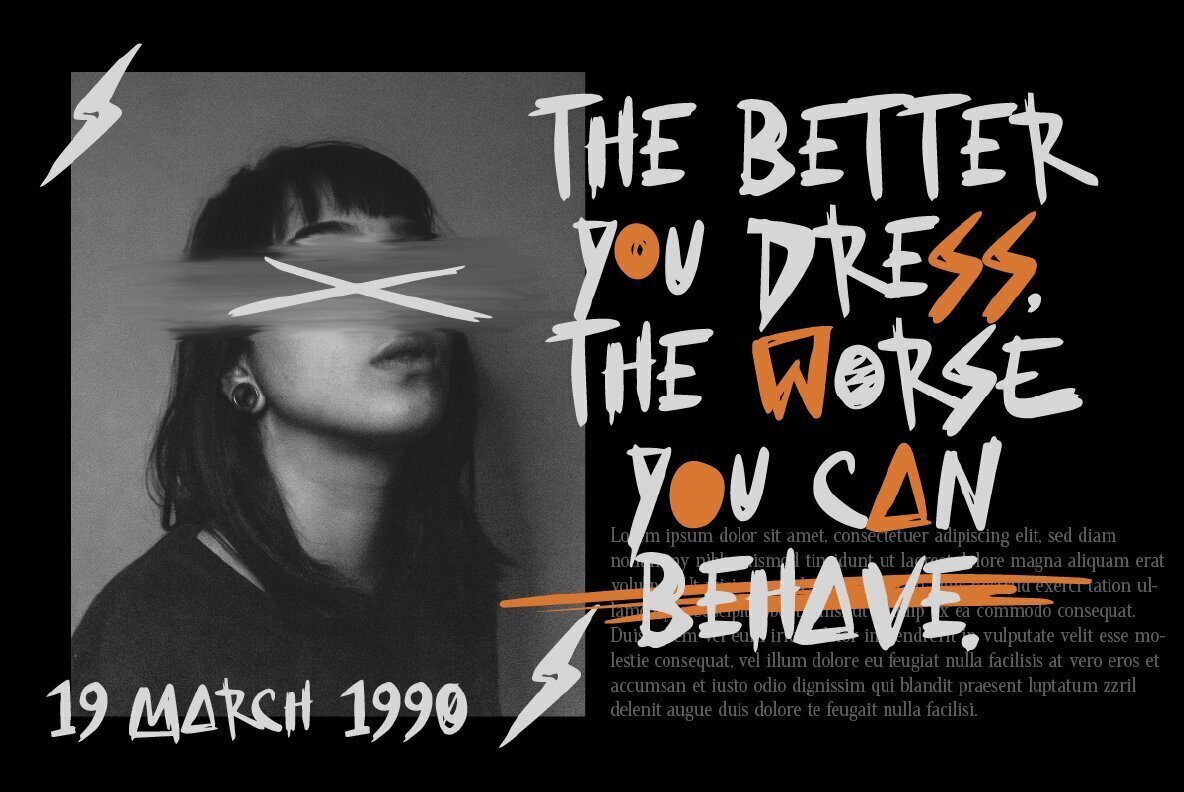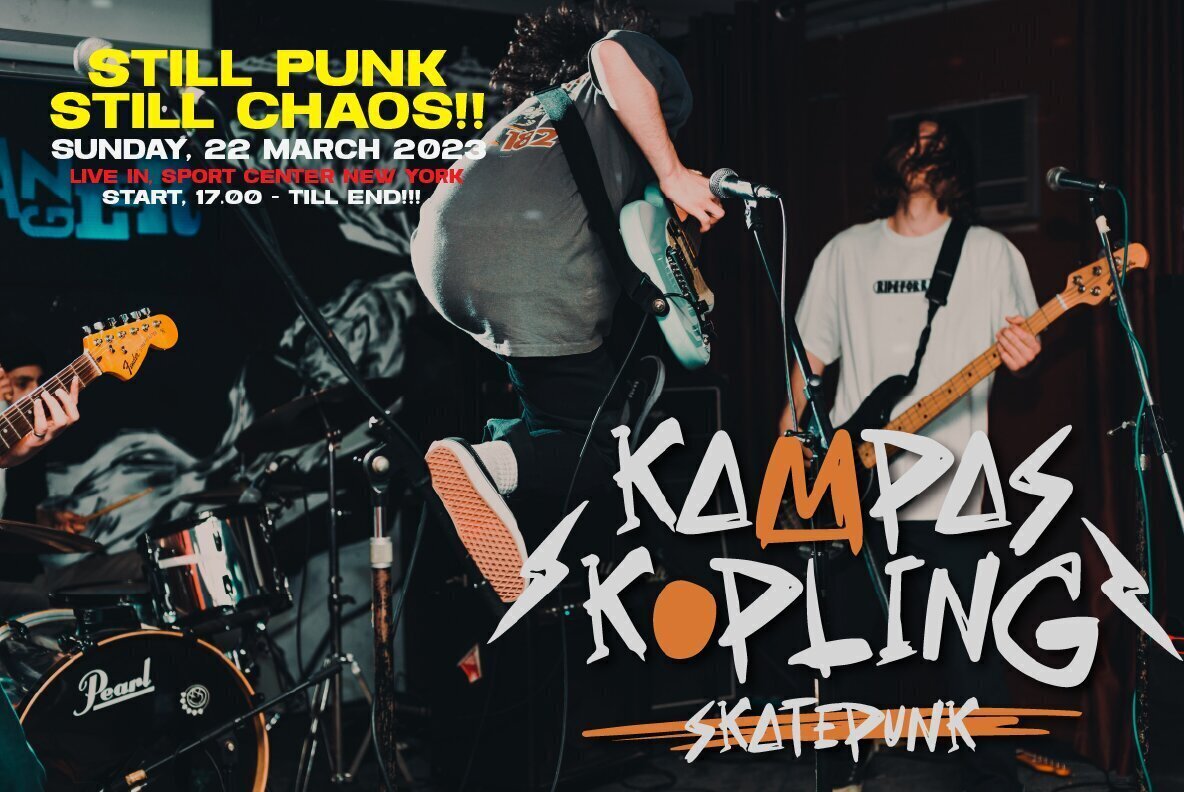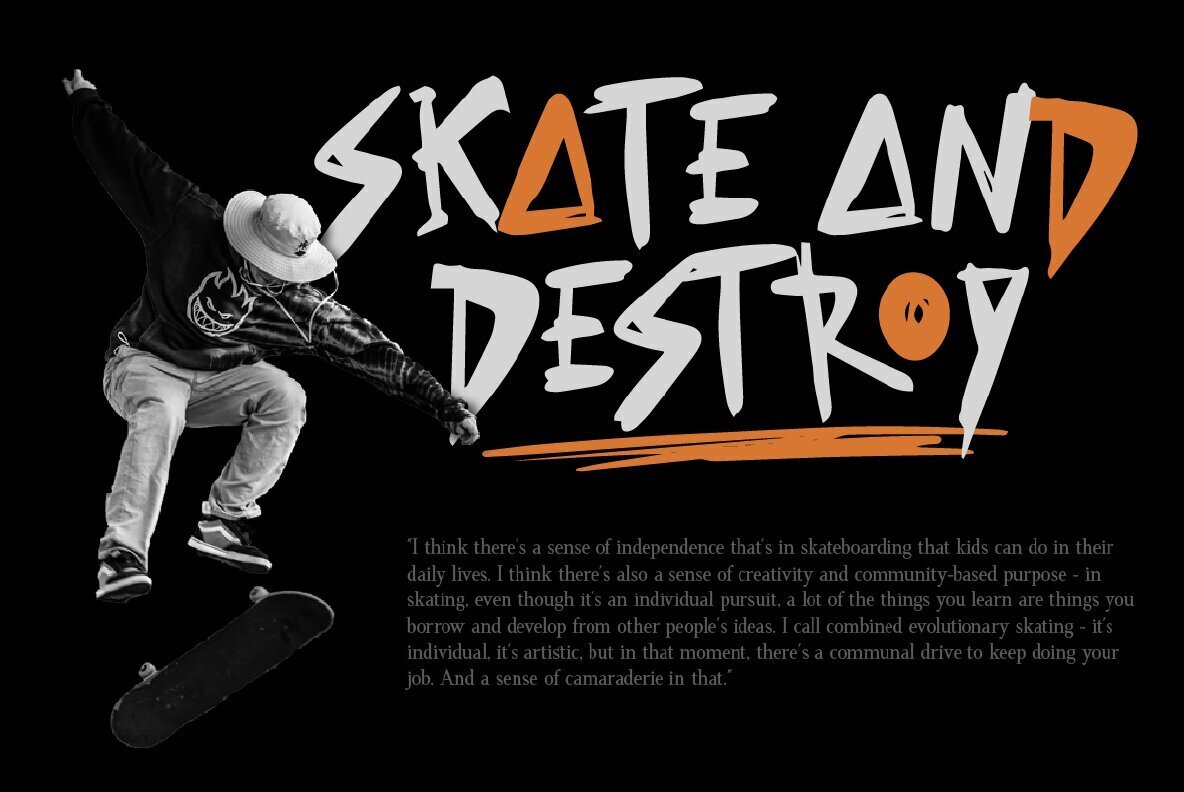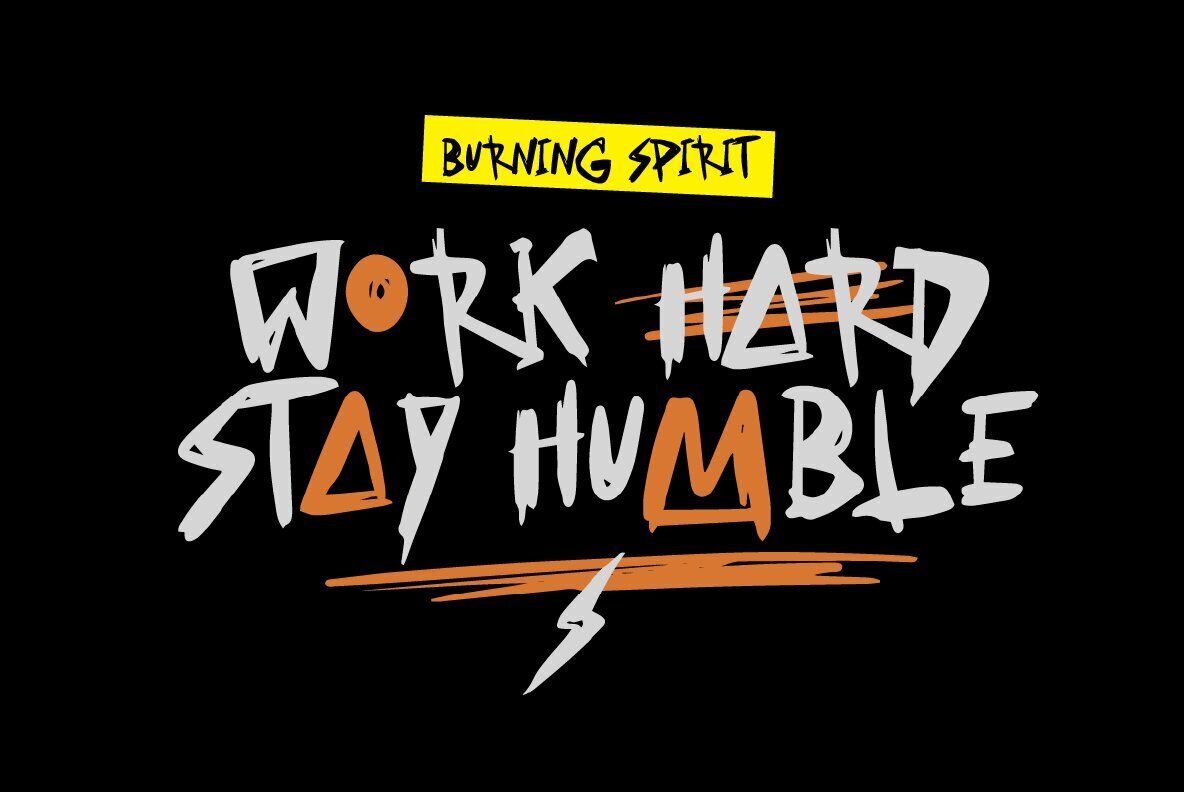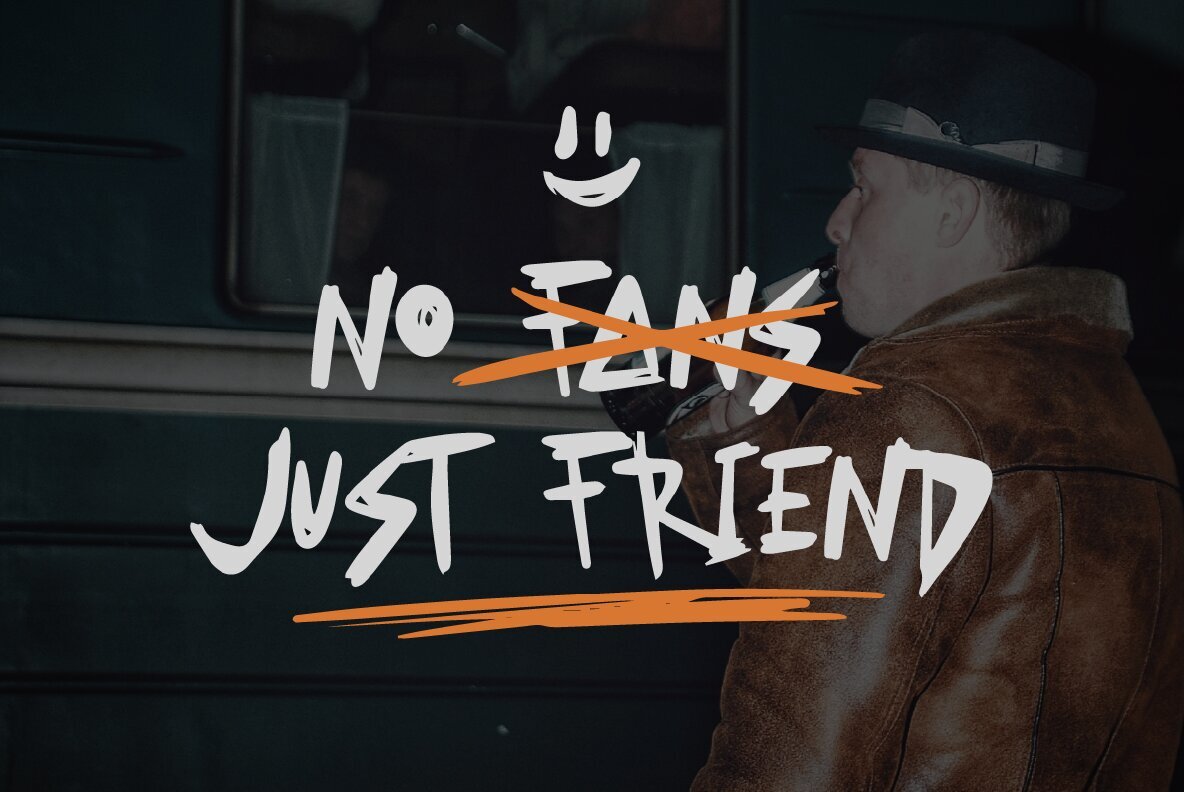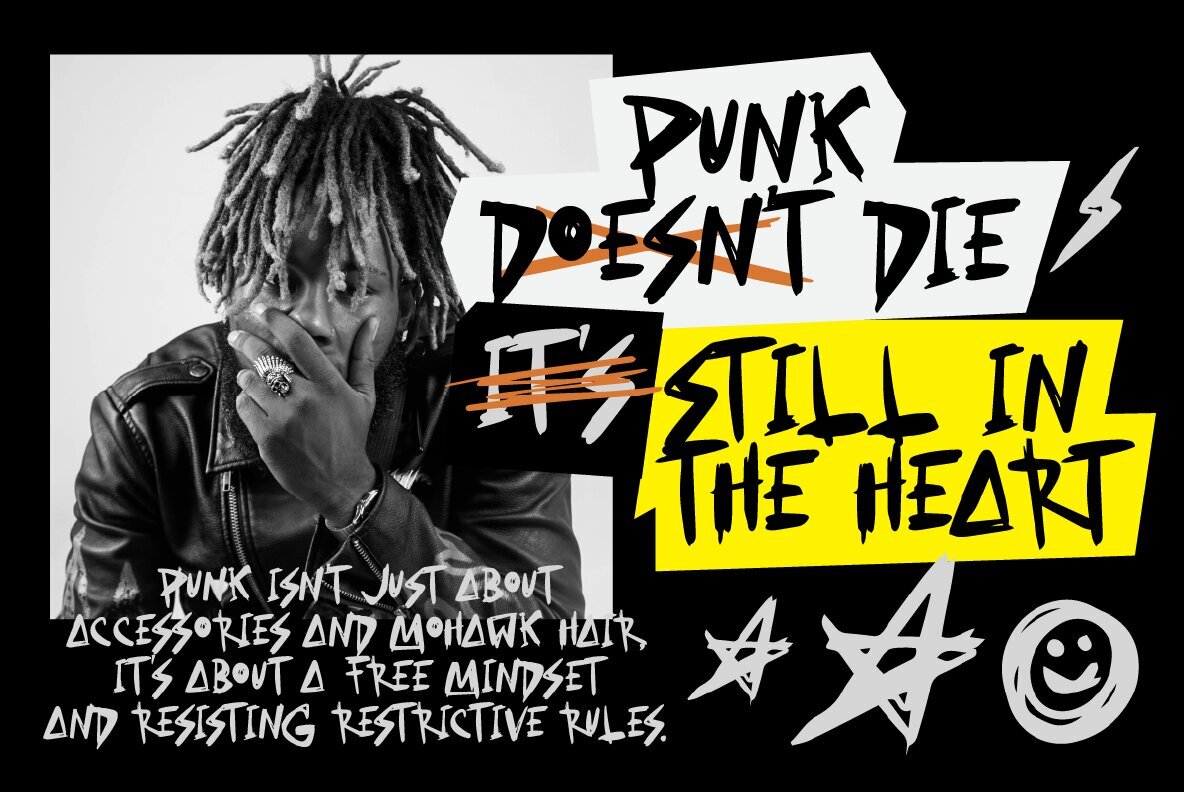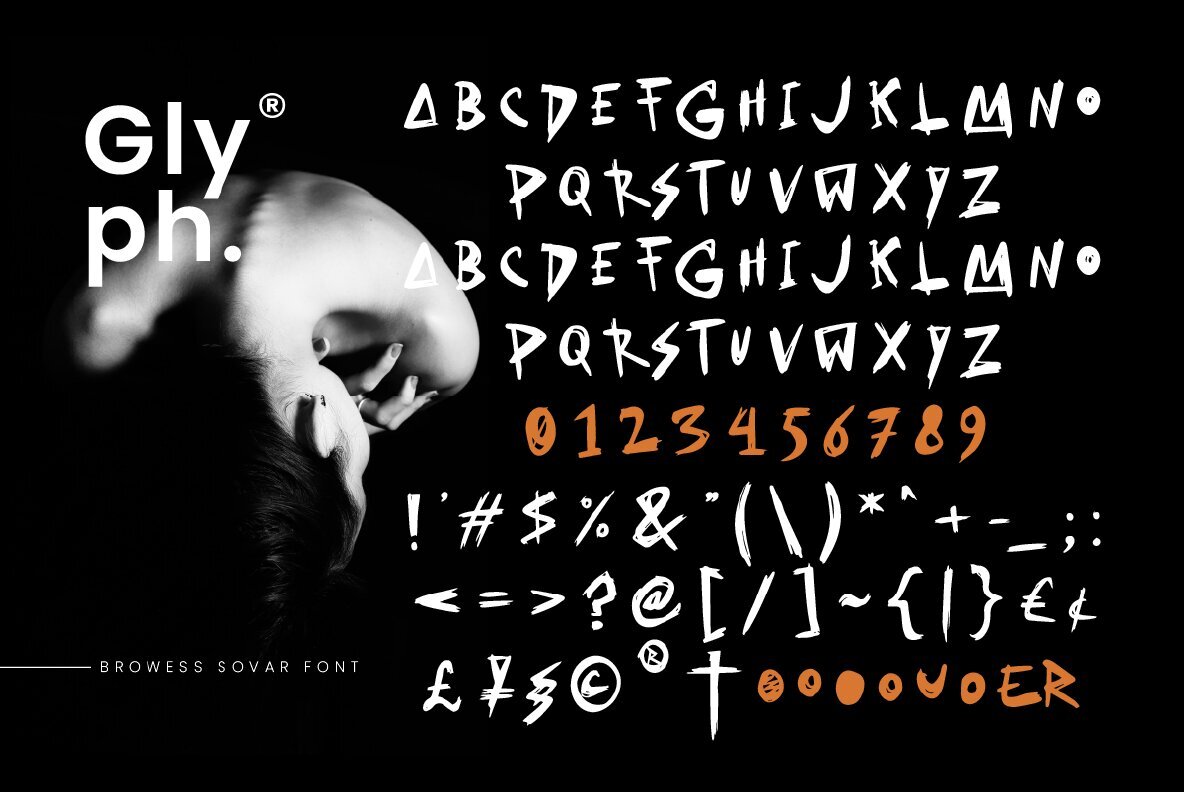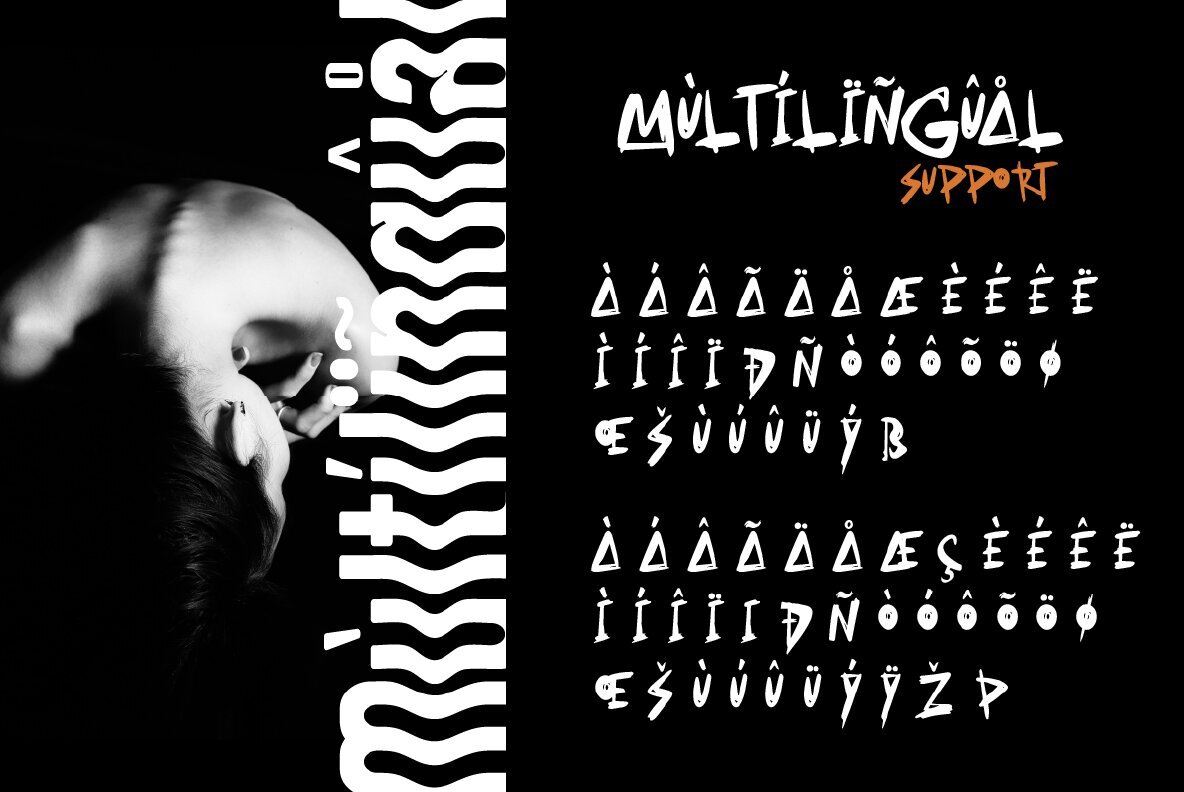
Browess Sovar Font
With hundreds of handwritten custom letter combinations, this font looks like it was scrawled with a pen. The chaotic style and natural flow make for an interesting read that will leave your audience wanting more! This typeface can be used in logos or as branding on any project you want to promote.
- Lowercase & Uppercase ( All Caps )
- Numbers and Punctuation